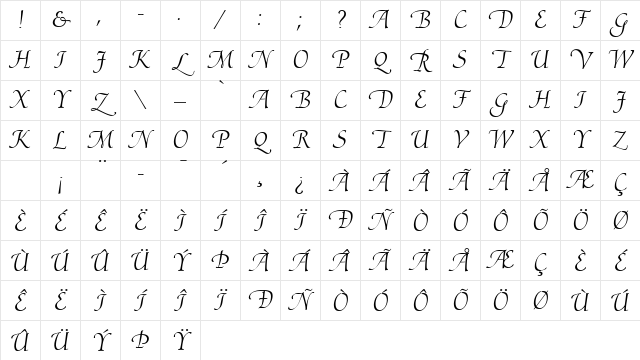
Ariadne Roman Regular
Design Context for Ariadne Roman
Ariadne Roman is a composed and adaptable typeface that performs quietly and consistently across a wide range of design contexts.
Pro Tip: Use Ariadne Roman in both headline and body roles to test its range before committing to a single application.